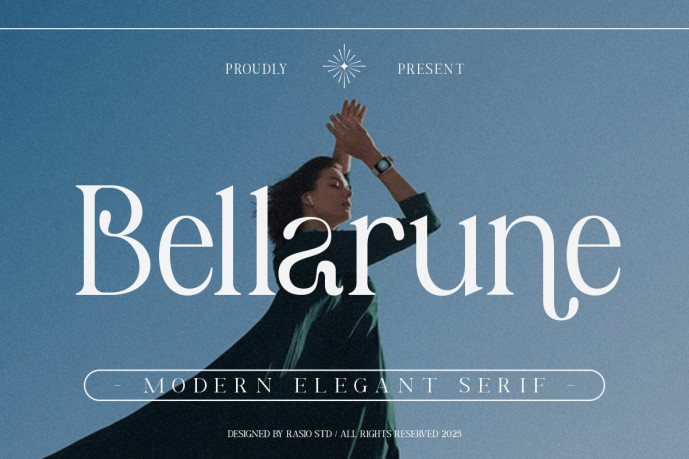
Bellarune Font
Bellarune Font is a refined and graceful modern serif typeface designed to bring timeless elegance to contemporary design projects. With its high-contrast strokes, carefully sculpted letters, and subtle vintage style, Bellarune blends traditional serif sophistication with a modern aesthetic. This typeface includes uppercase and lowercase letters, numerals, and standard punctuation, ensuring it is ready for professional use in both digital and print formats. The typeface’s unique curves and stylistic touches make it ideal for high-end brands, luxury fashion campaigns, premium editorial layouts, and stylish social media graphics. It works perfectly in both headlines and body text, offering excellent legibility while maintaining a refined and graceful presence.
Relevance and Uses Cases is perfect whether you are creating a magazine cover, designing a perfume logo, launching a boutique brand, creating wedding stationery, portfolio presentations, your boutique identity, high-end social media, minimalist layout, feminine branding, launching a product, designing business cards, a lifestyle blog, a high-end website, a creative agency, resources for content creators, or high-end products.